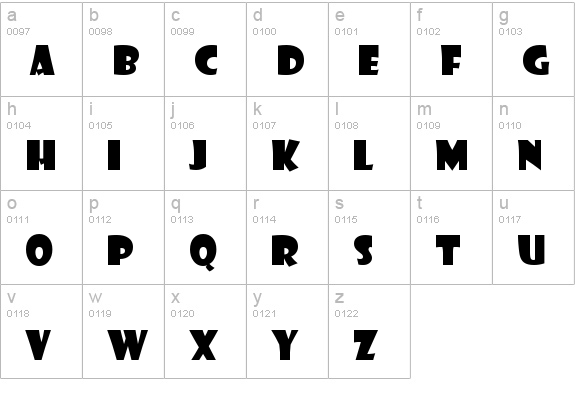
Showcard Gothic Font Details
Introducing Showcard Gothic, a bold and captivating font that effortlessly commands attention with its unique style. This font is a perfect blend of vintage charm and modern appeal, making it ideal for a wide range of design projects. With its distinctive letterforms and bold strokes, Showcard Gothic exudes confidence and personality. It is the perfect choice for headlines, posters, logos, and any other design element that requires a strong and impactful presence. Each character is meticulously crafted to ensure clarity and legibility, even at larger sizes. But what makes Showcard Gothic truly stand out is its availability. Yes, you heard it right - this remarkable font is absolutely free! You can easily download it at FontsMarket.com, a trusted source for high-quality fonts. So whether you're a professional designer or a passionate enthusiast, you can now add this remarkable font to your collection without breaking the bank. So why wait? Enhance your designs with Showcard Gothic's bold and eye-catching presence. Download it for free at FontsMarket.com and let your creativity soar to new heights.